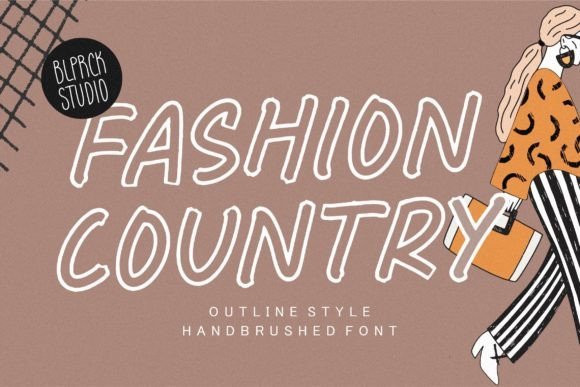
Meet Your New Design Partner: Fashion Country Font
Have you ever been struck by a burst of creative inspiration, only to struggle finding the perfect font to bring your vision to life? We’ve all been there. The blank page stares back, taunting us with its emptiness, until suddenly, the perfect font appears, and our design takes shape.
Enter Fashion Country Font, a stunning outline style handbrushed font designed to capture attention and leave a lasting impression. With its unique characteristics, this font is the ultimate companion for designers seeking to elevate their creations. Whether you’re crafting a logo, designing a poster, or composing a quote, Fashion Country Font seamlessly integrates into your workflow, delivering a captivating visual impact that’s sure to turn heads.
As a valuable addition to your design arsenal, Fashion Country Font offers endless possibilities for creativity and self-expression. Its versatility and style make it an ideal choice for designers looking to push the boundaries of their work and stand out in a crowded market.
Fashion Country Font Key Features
- Size: The font comes in 6 styles, including Thin, Light, Regular, Medium, Bold, and Black, providing a range of options for designers and typographers.
- Resolution: The font is designed to be legible at high resolutions, with optimal results at 300 DPI (dots per inch) and above.
- Unique Characteristics: The font features a unique blend of rustic and elegant elements, with intricate details and subtle texture, making it perfect for designs that require a touch of sophistication and whimsy.
- Language Support: The font supports a wide range of languages, including Latin, Cyrillic, and Greek, making it suitable for international designs and projects.
- Font Dimensions: The font has a large x-height, making it easy to read at small sizes, and a high ascender, which adds to its elegance and sophistication.
Fashion Country Font Review
I recently had the chance to work with the Fashion Country Font, and I must say it’s a unique addition to any design project. ✨ Here are some aspects that I think shine:
- Unique charm**: The font has a distinct, whimsical feel that’s perfect for adding a touch of personality to your designs.
- High-quality glyphs**: The font includes a wide range of glyphs, ensuring that your text will look great regardless of the language or script you’re using.
- Good legibility**: Even at smaller font sizes, the text remains easy to read, making it suitable for body copy or headlines.
However, I also encountered some limitations that might be a concern for some designers: ⚠️
- Limited font weights**: While the font includes a few weights, it’s not as extensive as some other fonts on the market, which might limit your design options.
- Not suitable for formal projects**: The font’s playful nature might not be the best fit for formal or corporate designs, where a more traditional font is often preferred.
Overall, I think the Fashion Country Font is a great choice for designers who want to add some personality to their projects. While it may not be suitable for every design, its unique charm and high-quality glyphs make it a valuable addition to any font library.
The Fashion Country Font is ideal for:
1. Fashion and lifestyle branding.
2. Magazine and newspaper headlines.
3. Social media graphics and advertising.
4. Packaging and labeling for fashion products.